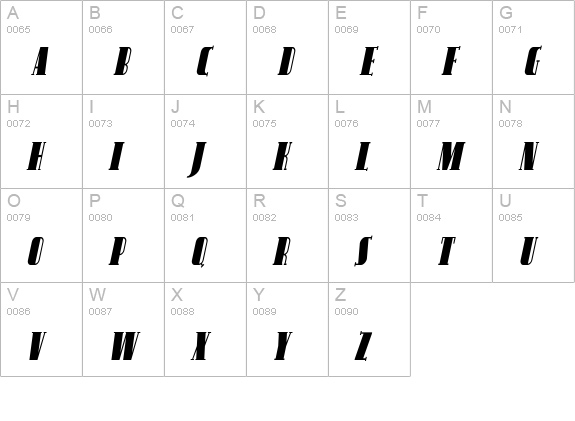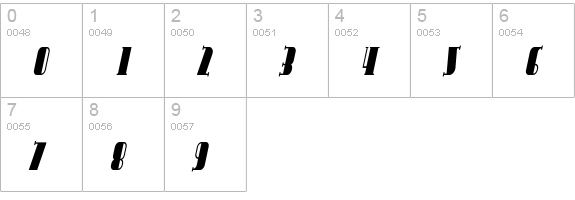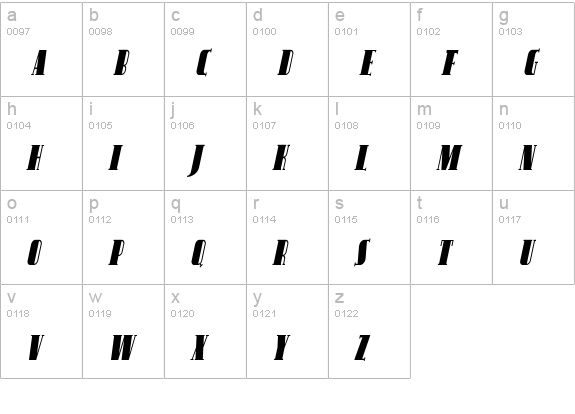
Avondale SC Cond Italic is a distinctive, condensed-width, italic variant in the Avondale typeface family \xE2\x80\x94 well suited to design and typography projects.
Avondale SC Cond Italic font is a sleek and modern typeface that exudes elegance and sophistication. Its condensed design and italic style make it perfect for adding a touch of flair to any project. The sharp serifs and clean lines give this font a contemporary look that is sure to make a statement. Best of all, Avondale SC Cond Italic font is available for free download at FontsMarket.com. Whether you're working on a branding project, designing a website, or creating marketing materials, this font is a versatile choice that will elevate your work to the next level. Don't miss out on the opportunity to enhance your designs with this stylish and eye-catching typeface. Download Avondale SC Cond Italic font today and let your creativity shine!